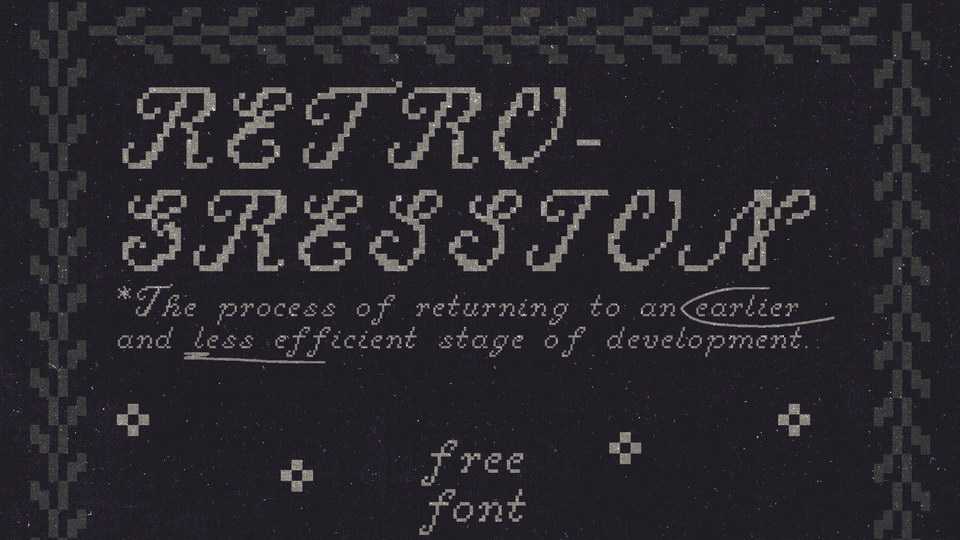
Download Retrogression font, a pixelated typeface inspired by old cross-stitch alphabet schemes. Retrogression supports Cyrillic and Latin, supplemented with decorative ornaments.